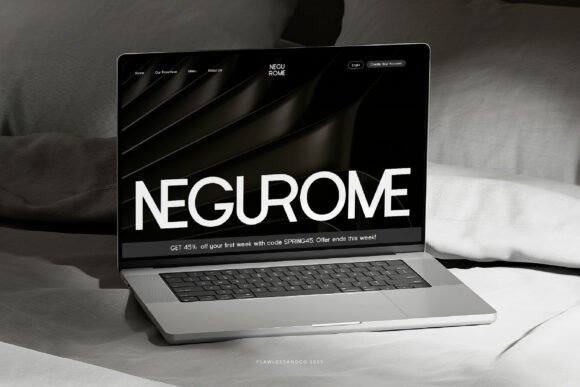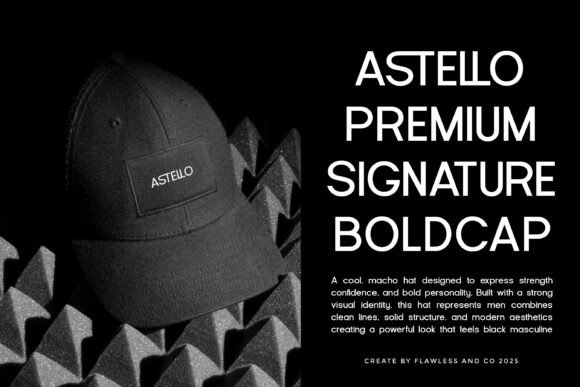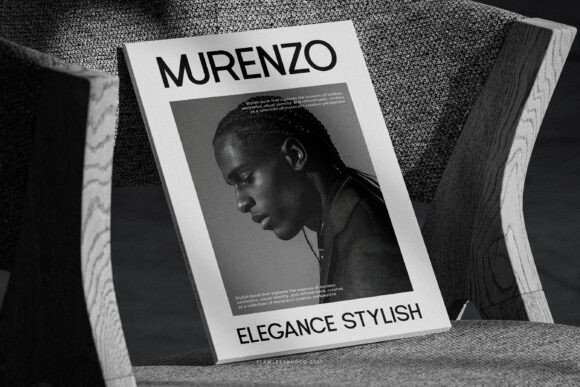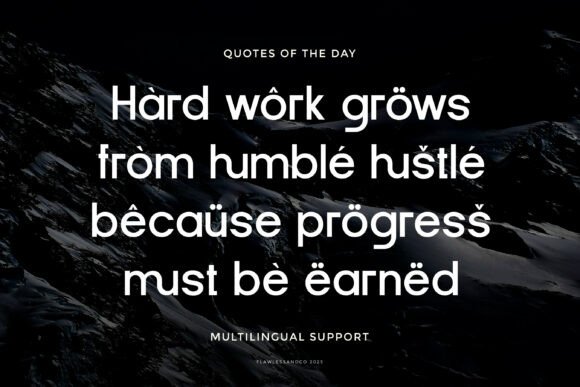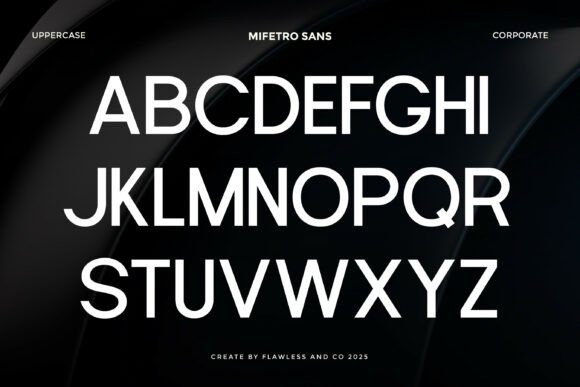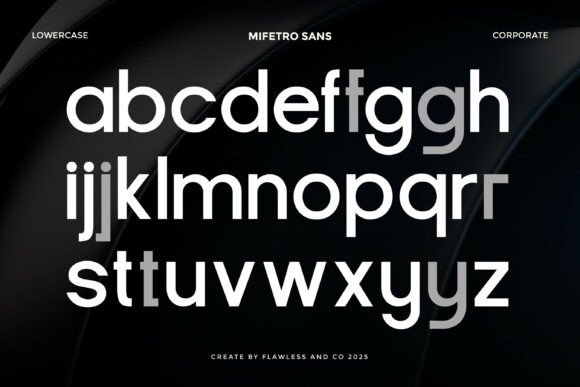
Introduction to Mifetro Font
Mifetro is a modern clean sans serif typeface crafted for professional and corporate design needs.
Built with precise geometry, balanced proportions, and clear letterforms, Mifetro delivers a sleek and contemporary appearance that communicates clarity, confidence, and reliability .